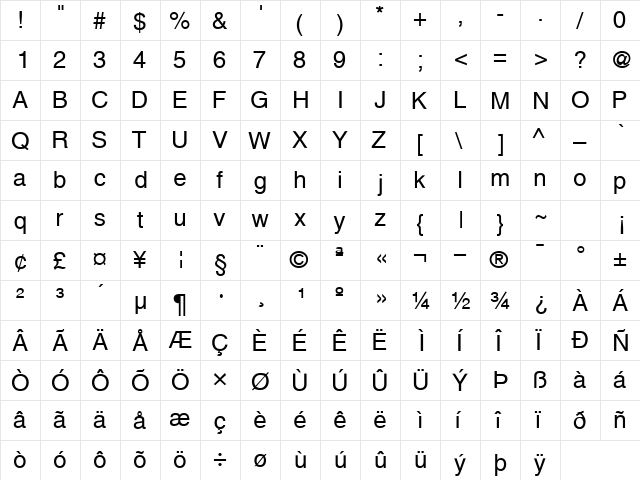
ContextSSK Regular
Design Context for ContextSSK Typeface
ContextSSK offers clean, dependable letterforms without strong stylistic allegiance, making it a practical choice for designers who need flexibility.